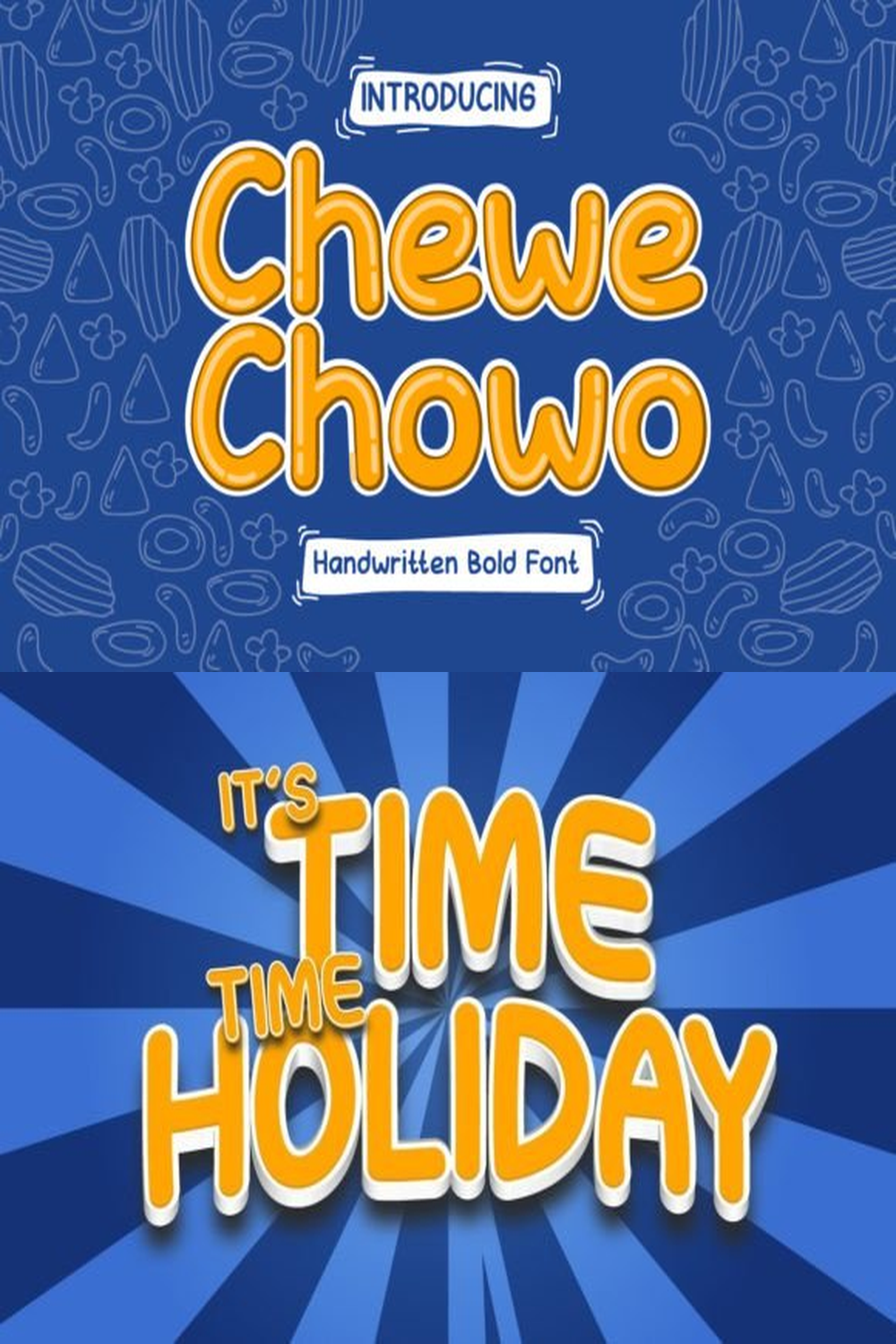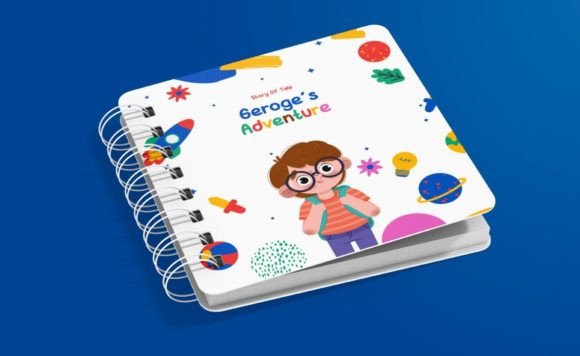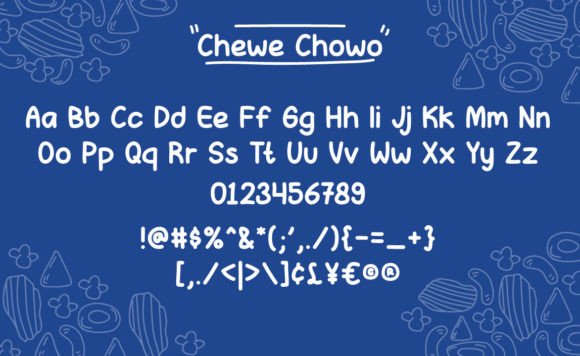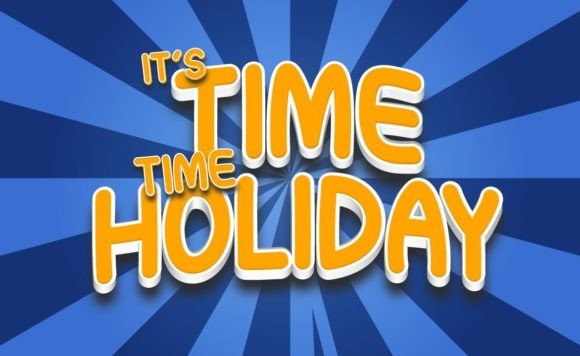
Chewe Chowo Font: A Playful & Bold Display Font for Cute DIY Designs!
About the Chewe Chowo Font
Explore the possibilities with Chewe Chowo Font, a font that offers both beauty and functionality. Chewe Chowo is a playful and cute display font. Its dynamic characters make this font suitable for a large variety of projects and it will instantly make your creations stand out!
Chewe Chowo Font Usage Examples